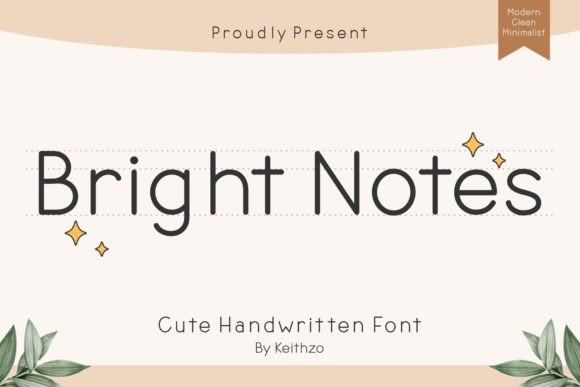
Introducing Bright Notes Font: The Ultimate Choice for Fun and Creative Projects
Are you looking for a font that can add a touch of fun and playfulness to your designs? Look no further than Bright Notes Font! This adorable font is perfect for creating eye-catching displays, logotypes, stickers, and other lettering projects that require a dash of whimsy. In this article, we’ll dive into the world of Bright Notes Font and explore its features, benefits, and uses.
What is Bright Notes Font?
Bright Notes Font is a modern, sans-serif font that’s designed to bring a smile to your face. Its clean lines, rounded edges, and bubbly appearance make it an instant favorite among designers and crafty enthusiasts. This font is perfect for anyone who wants to add a pop of personality to their designs, whether it’s for a kids’ party invitation, a fun social media post, or a playful brand identity.
Key Features of Bright Notes Font
- Fun and playful design: Bright Notes Font is designed to be fun and engaging, making it perfect for projects that require a lighthearted touch.
- Highly versatile: This font comes with lots of combination possibilities, allowing you to experiment with different styles and effects.
- Smooth and clean lines: The font’s smooth lines and rounded edges give it a friendly, approachable feel.
- Perfect for display text: Bright Notes Font is optimized for display text, making it ideal for headings, titles, and other prominent text elements.
Uses for Bright Notes Font
Bright Notes Font is an incredibly versatile font that can be used for a wide range of projects, including:
- Logotypes and branding: Create a fun and memorable brand identity with Bright Notes Font.
- Stickers and labels: Add a playful touch to your stickers and labels with this adorable font.
- Kids’ signs and posters: Bright Notes Font is perfect for creating fun and engaging signs and posters for kids’ parties, events, and activities.
- Social media graphics: Use Bright Notes Font to create eye-catching social media graphics that are sure to grab attention.
- Lettering projects: This font is ideal for hand lettering projects, such as quotes, phrases, and other creative typography.
Benefits of Using Bright Notes Font
So why choose Bright Notes Font for your next project? Here are just a few benefits of using this amazing font:
- Instant recognition: Bright Notes Font is sure to grab attention and leave a lasting impression on your audience.
- Easy to read: Despite its playful design, Bright Notes Font is highly legible, making it perfect for both short and long text passages.
- Customizable: With its wide range of combination possibilities, you can easily customize Bright Notes Font to fit your project’s unique needs.
- Time-saving: Bright Notes Font is designed to be used for a variety of projects, saving you time and effort in the long run.
Tips for Using Bright Notes Font
To get the most out of Bright Notes Font, here are a few tips to keep in mind:
- Experiment with colors: Bright Notes Font looks great in a variety of colors, so don’t be afraid to experiment and find the perfect hue for your project.
- Mix and match: Try combining Bright Notes Font with other fonts to create a unique and eye-catching effect.
- Pay attention to spacing: Make sure to adjust the spacing between letters and words to ensure optimal readability.
- Have fun: Most importantly, have fun with Bright Notes Font! Its playful design is meant to bring a smile to your face, so enjoy the process of creating with it.